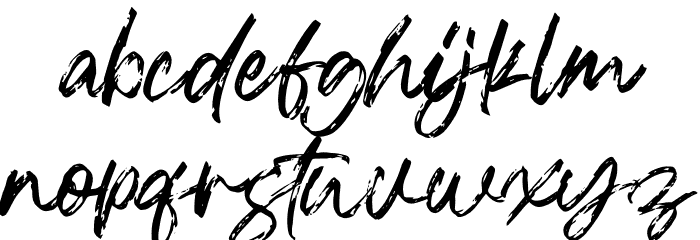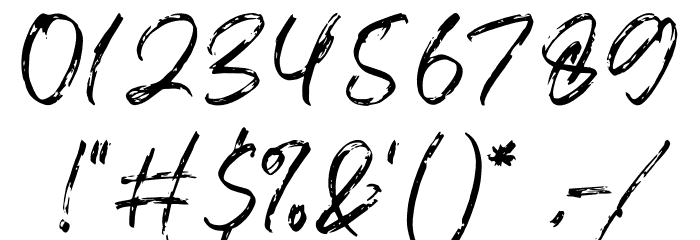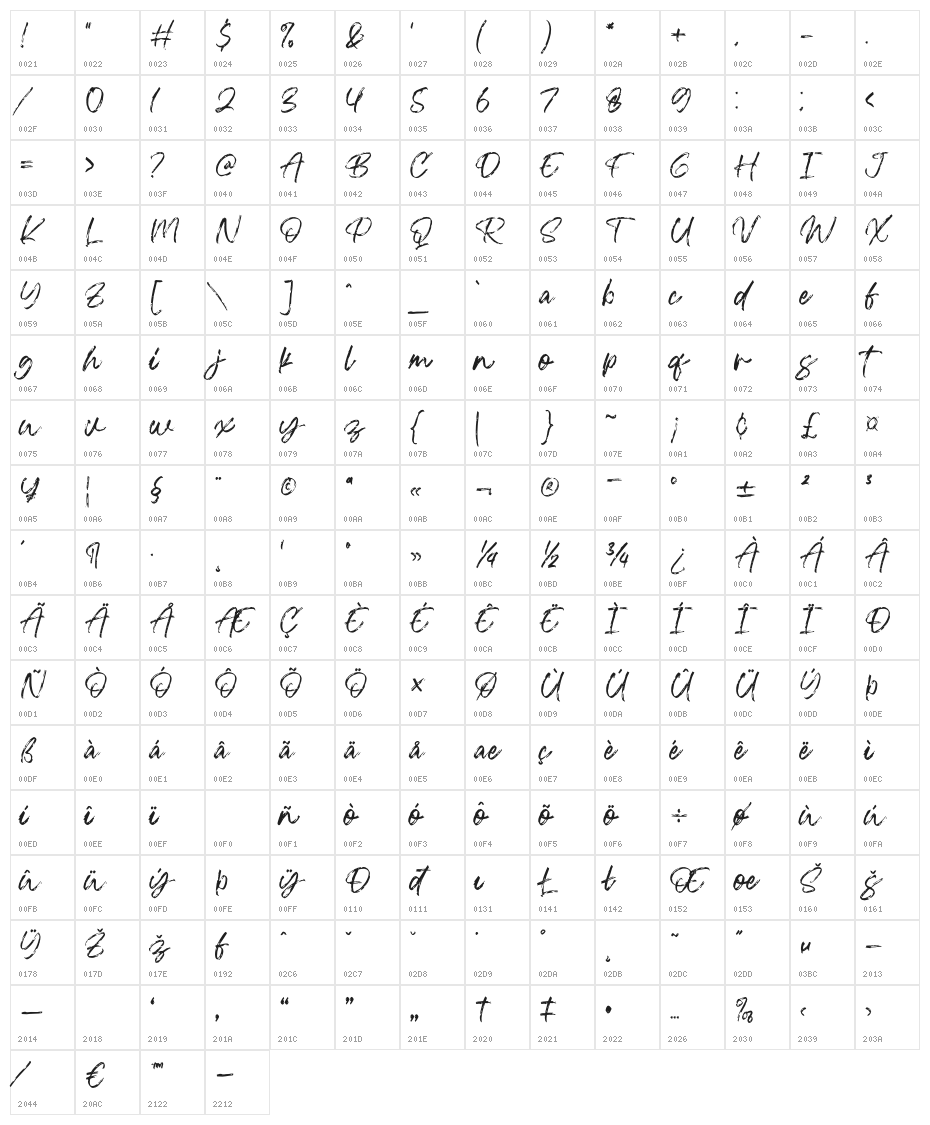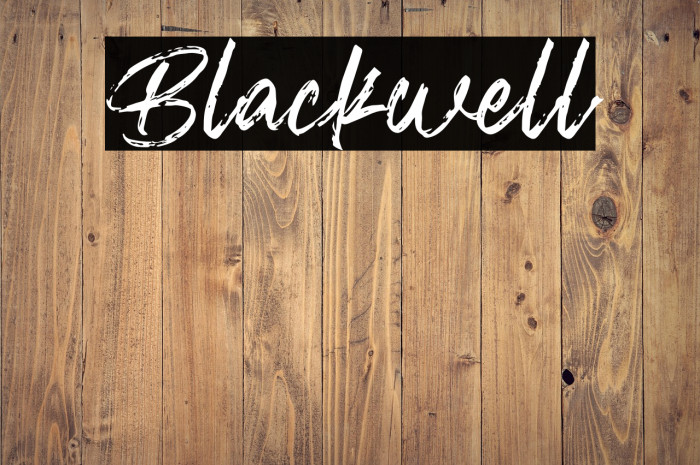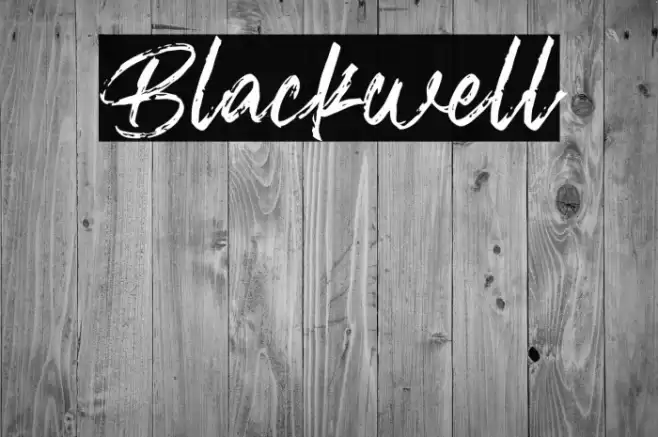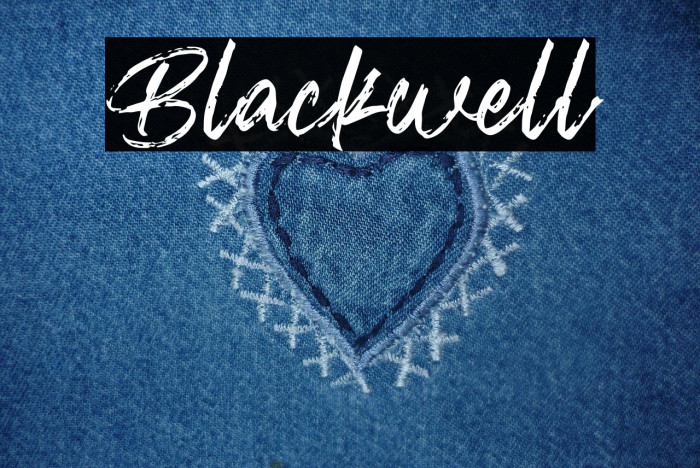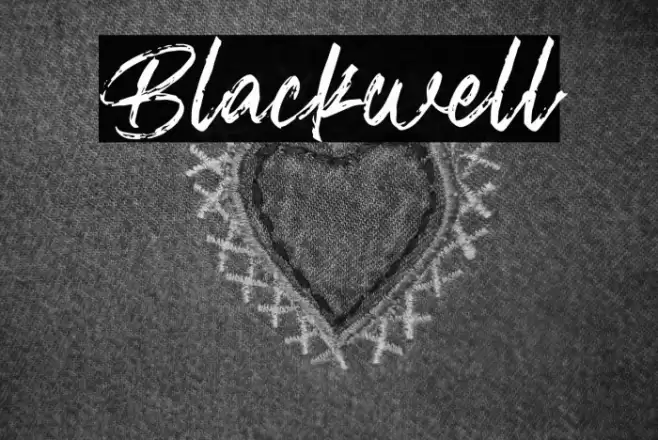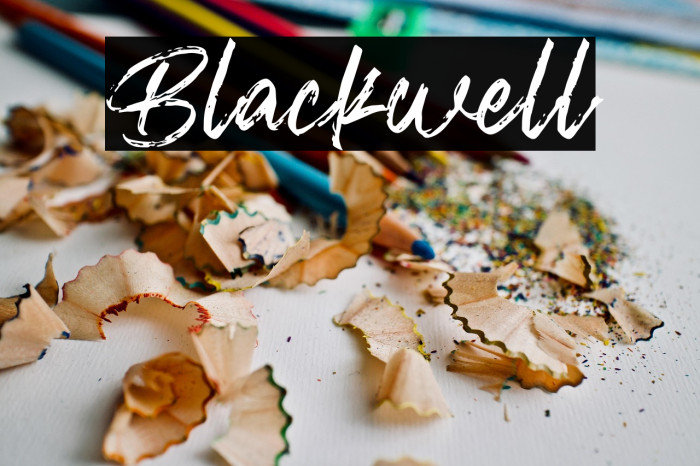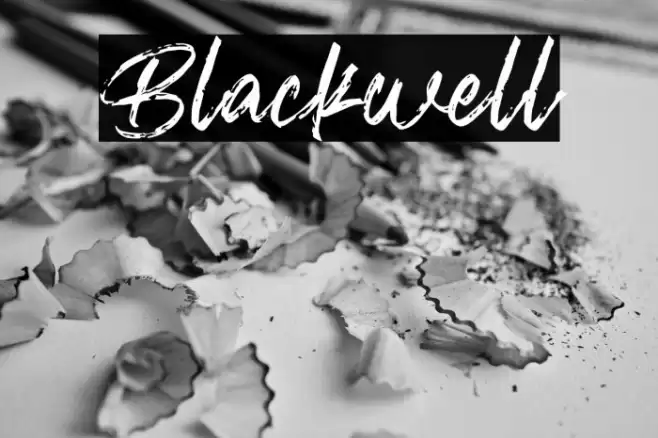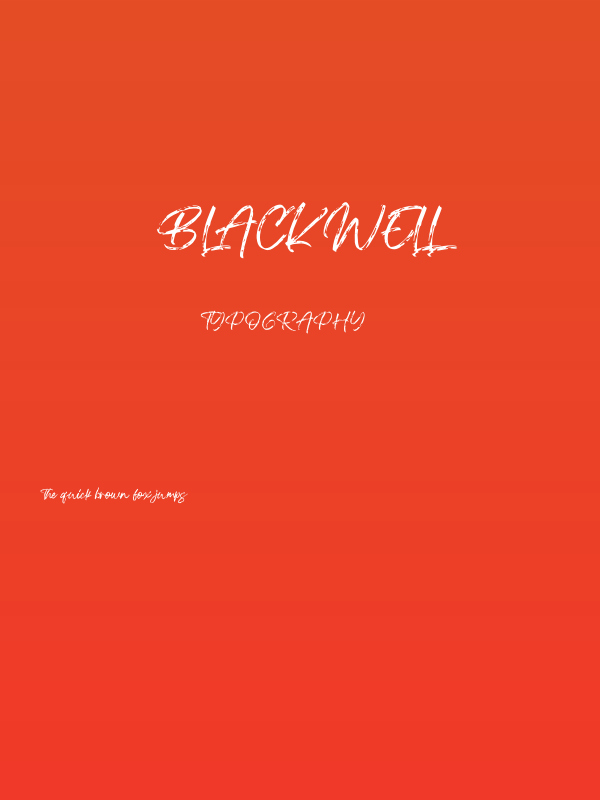
Blackwell Font
This font features a dynamic and expressive handwritten style, characterized by its bold and energetic strokes. The letters exhibit a natural flow, with varying stroke widths that create a sense of movement and spontaneity. The uppercase and lowercase letters maintain a consistent style, with some letters having distinctive loops and swashes that add to the font's unique personality. The numbers and special characters are crafted with the same attention to detail, ensuring a cohesive appearance across all glyphs. This font's textured appearance gives it a raw, artistic feel, making it ideal for projects that require a personal touch.
A bold, expressive handwritten font with dynamic strokes and a textured appearance.